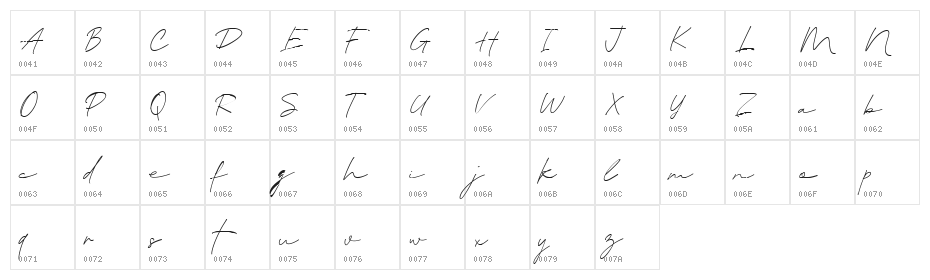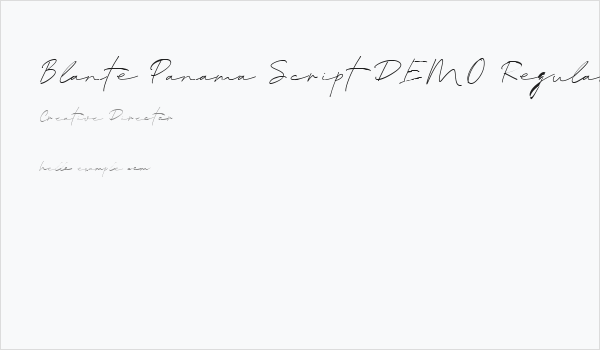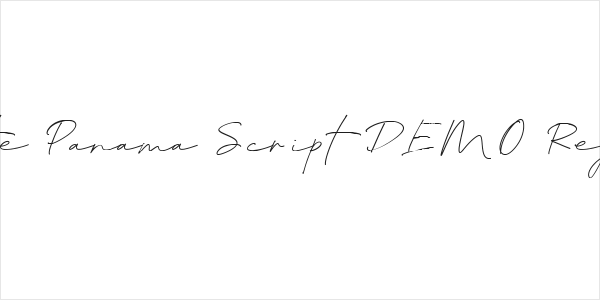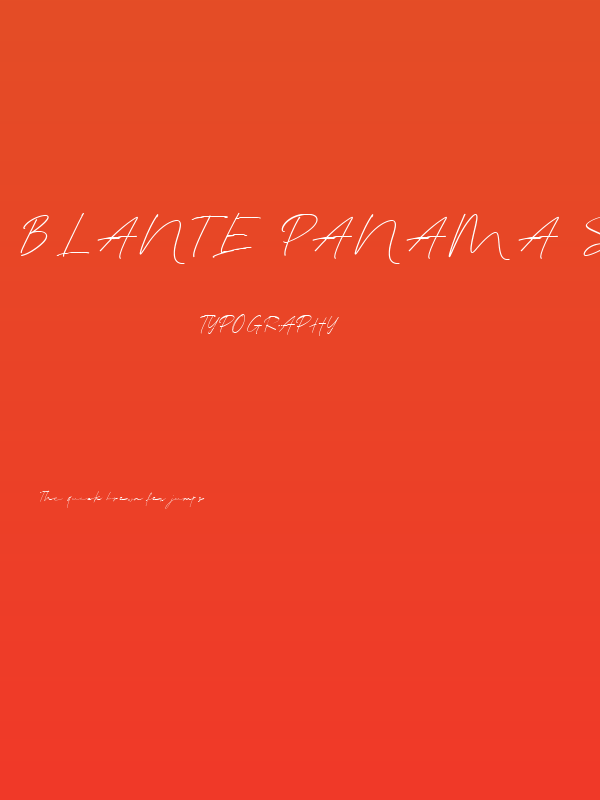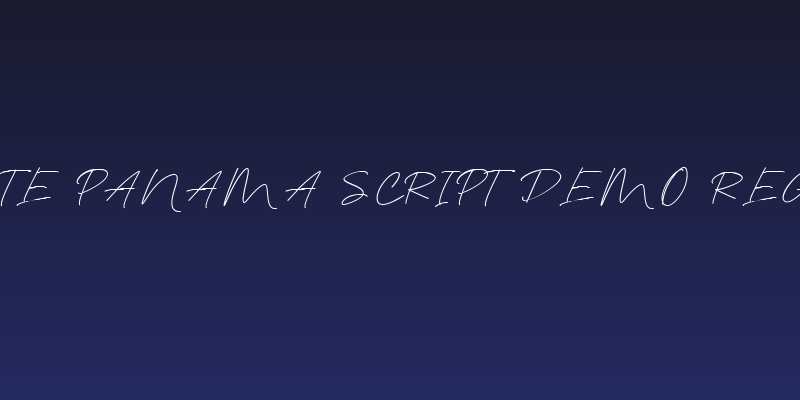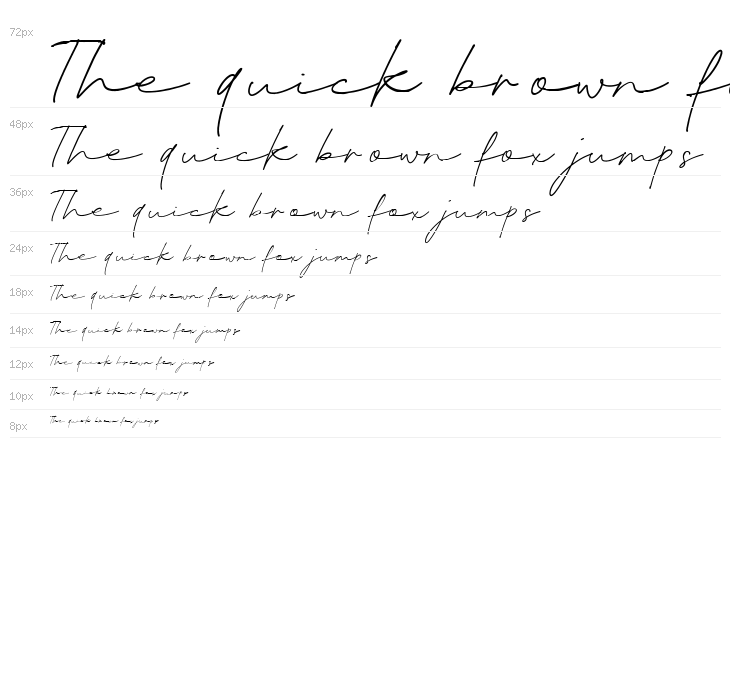
Blante Panama Script DEMO Regular Font
Blante Panama Script DEMO Regular Description
This font features a flowing, cursive style that mimics natural handwriting with a touch of elegance. The letters are connected in a fluid manner, creating a seamless and continuous script. The strokes are thin and delicate, giving the font a light and airy feel. The uppercase letters maintain a consistent height, while the lowercase letters exhibit a slight slant, enhancing the handwritten appearance. The font's overall aesthetic is both sophisticated and approachable, making it suitable for a variety of creative applications.
Overall StyleElegant, Handwritten
Use CaseLogos, Invitations, Personal Branding
Proposed ProjectsIdeal for wedding invitations, personal branding, greeting cards, and elegant stationery.